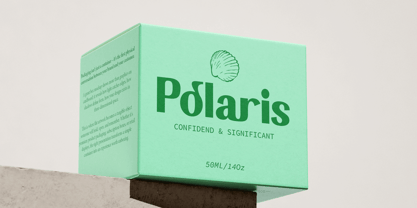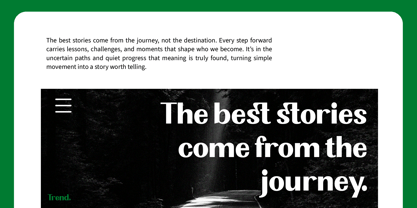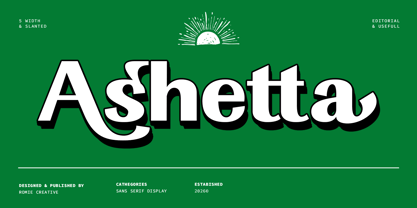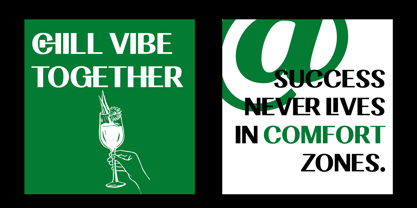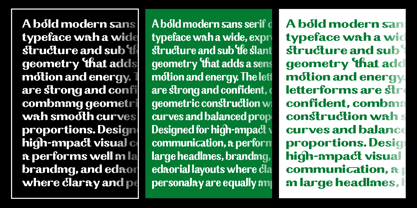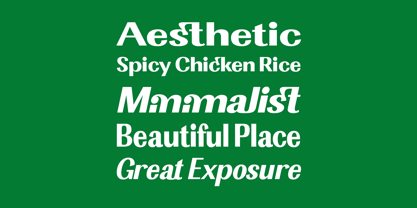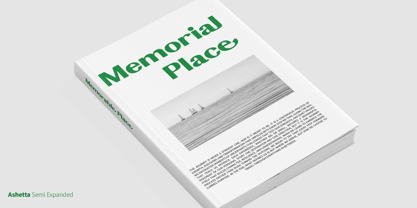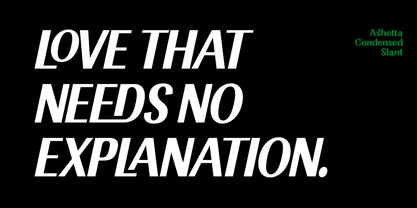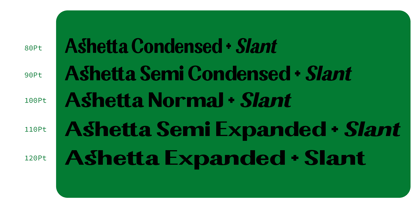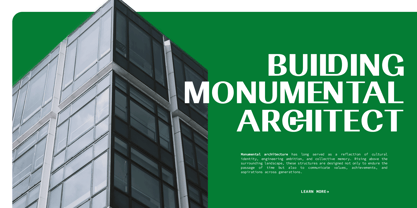
Ashetta
by Romie Creative
The Ashetta Font Family was designed by Romi Rahmadi and published by Romie Creative. Ashetta contains 10 styles and family package options. More about this family
Ashetta is a bold sans-serif display typeface with a distinctive slanted character style and strong visual personality. Designed to make a statement, it combines thick geometric letterforms, smooth curves, and dramatic proportions that create a modern yet playful appearance. Its oversized shapes, unique letter construction, and high-impact presence make it ideal for editorial headlines, branding, posters, packaging, logos, social media graphics, and contemporary creative projects. Ashetta delivers a confident, eye-catching aesthetic while maintaining excellent readability at large sizes.
Designers: Romi Rahmadi
Foundry: Romie Creative